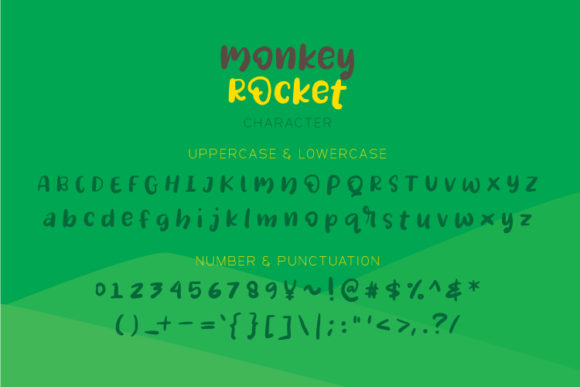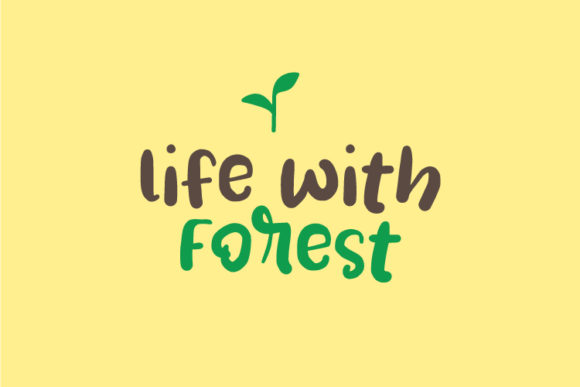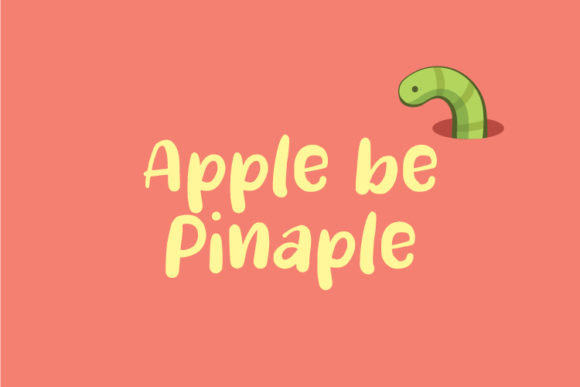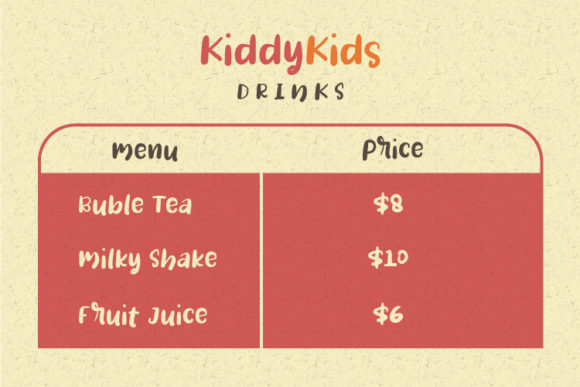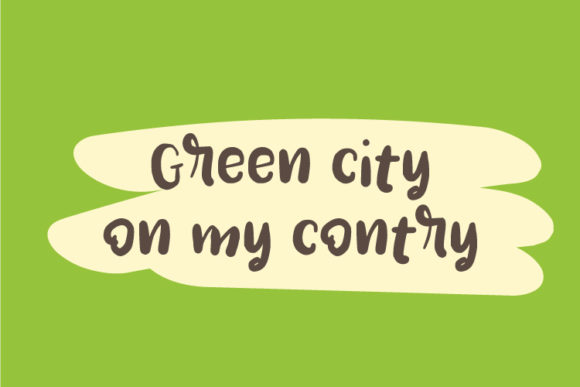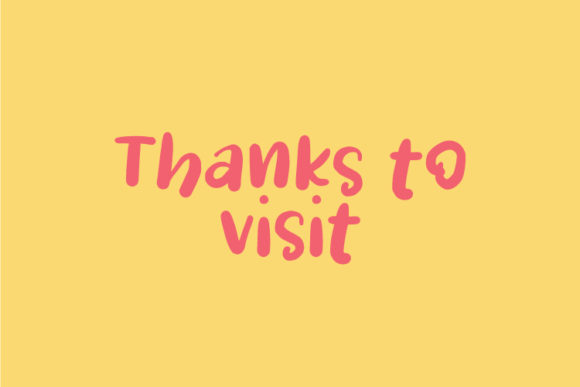
Introduction to Monkey Rocket Font
You know that feeling when you’re stuck on a creative project, and the perfect font just eludes you? That’s exactly what happened to me last week when designing a poster for a friend’s music festival. I wanted something fresh, yet relaxed – a font that would capture the laid-back vibe of the event. After scouring through design resources, I stumbled upon the Monkey Rocket Font, and it was love at first sight.
The Monkey Rocket Font is a stunning display font that’s perfect for a wide range of creative projects, from poster designs to book covers, and even merchandise. With its free download option, designers can access this high-quality design resource without breaking the bank.
Key Features of Monkey Rocket Font
- High-quality, unique design perfect for creative projects and designs.
- Transparent background, ideal for designs where you want the text to blend seamlessly.
- Perfect for use in logos, branding, and other design elements where a distinctive look is required.
- High-resolution font, suitable for use in both digital and print media.
- Designed to be highly legible and versatile, making it a valuable design resource.
Honest Review: Monkey Rocket Font
As a designer, I’m always on the lookout for high-quality design resources that can elevate my creative projects. Recently, I had the chance to try out the Monkey Rocket Font, and I’m here to share my honest thoughts on it.
- Unique and playful design style that’s perfect for modern projects
- Includes a transparent background, making it easy to work with
- Limited character set, which may not be suitable for complex projects
- No bold or italic versions available, which can limit its use in certain contexts
Overall, I think the Monkey Rocket Font is a solid design resource that’s perfect for small projects or design enthusiasts. While it has some limitations, its unique design style and free download make it a great addition to any designer’s toolkit.
I’d definitely recommend checking it out if you’re looking for a fun and playful font for your next creative project.
Tips for Getting the Most Out of Monkey Rocket Font
To get the most out of Monkey Rocket Font, experiment with different font sizes, colors, and styles to create unique and eye-catching designs. Use the font in combination with other design elements, such as images and graphics, to add depth and interest to your creative projects.
Monkey Rocket Font is commonly used in logos, branding materials, and social media graphics. It’s also great for creating eye-catching headings and titles for presentations and documents.
Alternatives to Monkey Rocket Font
1. Comic Sans MS
Comic Sans MS is a classic font suitable for creative projects, such as cartoons, comics, or children’s books. It’s a great choice when you need a friendly and approachable tone. When to use: informal designs, illustrations, and creative writing. How it compares to Monkey Rocket Font: Comic Sans MS has a more playful and casual feel, whereas Monkey Rocket Font is more modern and bold.
Pacifico Font is a high-quality, elegant font perfect for design projects that require a sophisticated and refined look. It’s ideal for wedding invitations, restaurant menus, or any creative project that demands a touch of luxury. When to use: formal designs, branding, and high-end marketing materials. How it compares to Monkey Rocket Font: Pacifico Font is more polished and sophisticated, while Monkey Rocket Font is more energetic and dynamic.